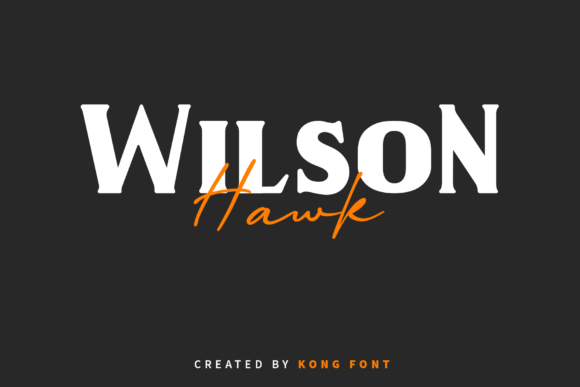
Wilson Hawk is a serif font characterized by bold, angular serifs and sturdy, well‑proportioned glyphs that give your typography a strong, confident voice. Its design balances readability with a distinctive edge, making it great for display use like logos, headlines, packaging, labels, or signage where you want a powerful impact.
With its refined yet assertive letterforms, Wilson Hawk works beautifully in both print and digital design contexts — from product packaging and posters to branding and editorial layouts. The font’s sharp serif style helps it stand out without sacrificing clarity.
- Strong serif styling — bold, angular, and authoritative, great for bold branding or vintage‑classic vibe
- Versatile — works across branding, packaging, editorial, merchandise, print and digital graphics
- Readable yet impactful — balances clarity with distinctive styling for display or headline use
- Excellent choice when you want serif typography that’s more character‑driven than neutral system fonts
Q: Is Wilson Hawk suitable for body text or long paragraphs?
A: While it’s readable, Wilson Hawk is best used for display, headings, logos, packaging, and signage. For long body text, a simpler serif or sans‑serif may be more comfortable to read. -
| Font Style | Bold serif with angular, strong serifs and sharp character | Classic serif — softer serifs, moderate weight, traditional | Sans‑serif — minimal, clean, modern, neutral |
| Readability (small text or body copy) | Moderate — better for display or headlines than small body text | Good — comfortable for longer text and paragraphs | High — ideal for body text, especially on screen or web |
| Visual Vibe | Strong, classic, vintage‑inspired, authoritative, bold | Traditional, timeless, refined | Clean, minimal, modern, neutral |